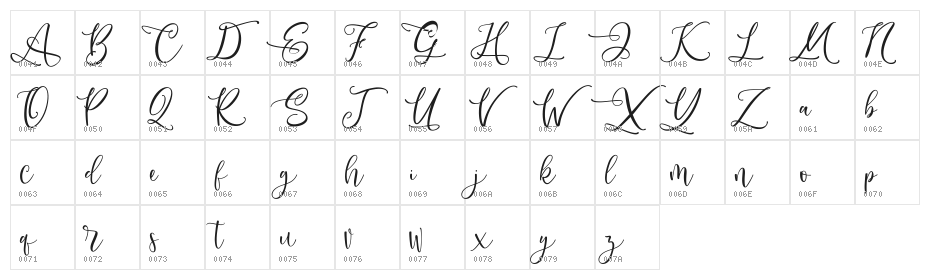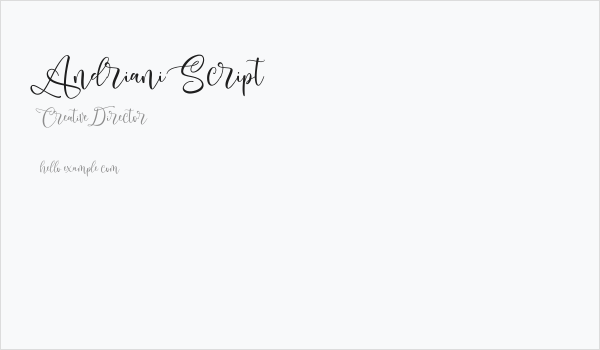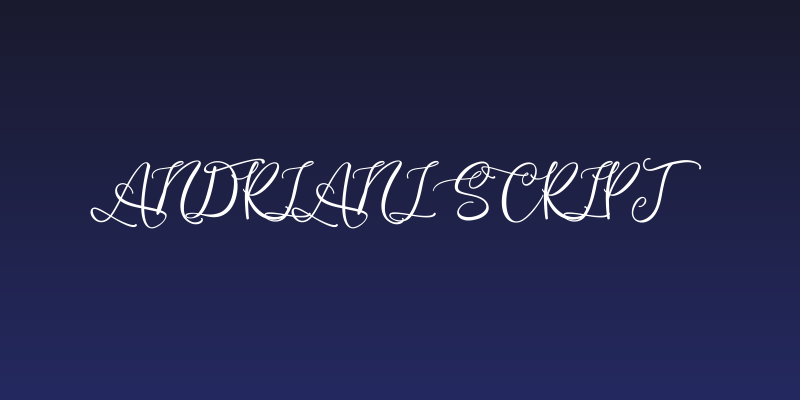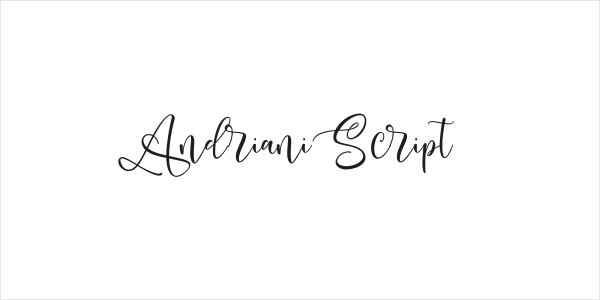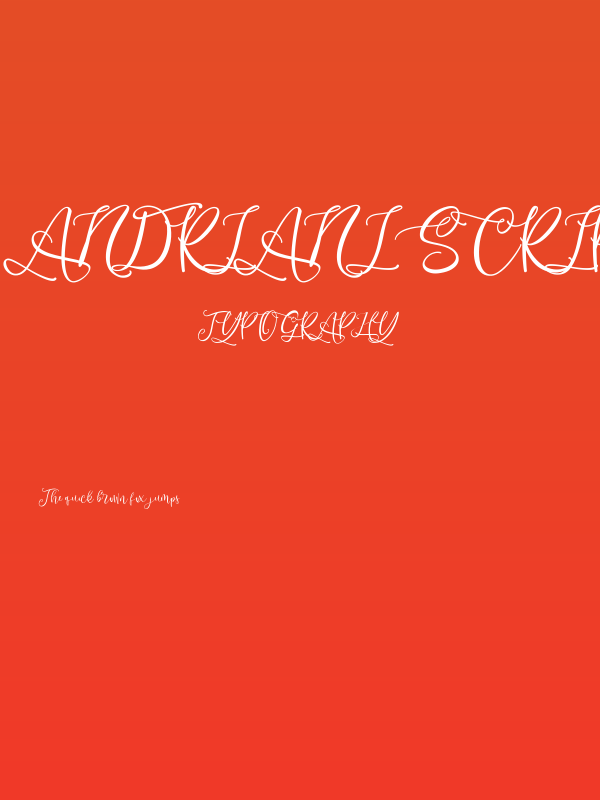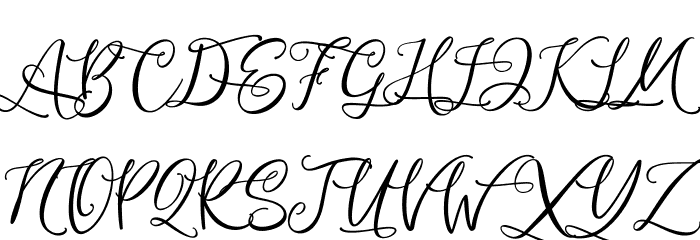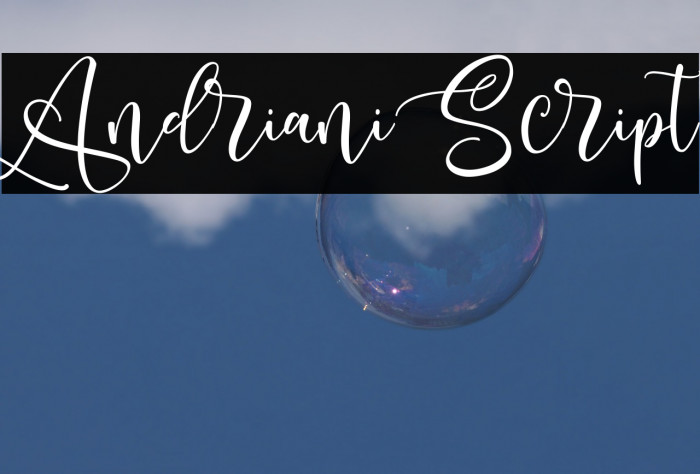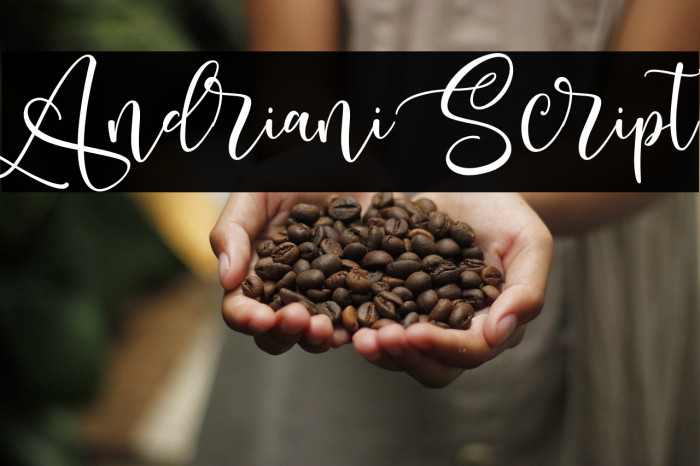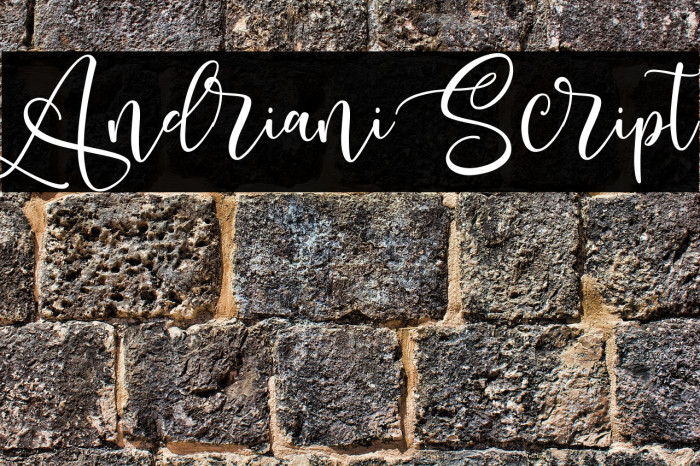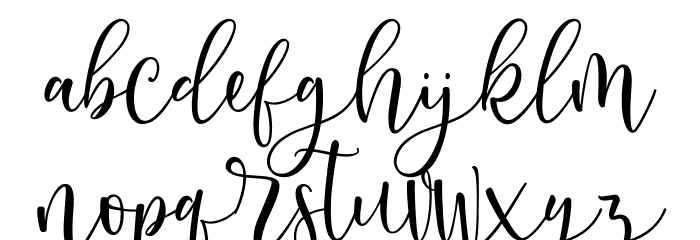
Andriani Script Font
Andriani Script Description
This elegant script font features flowing, interconnected letters with a graceful and sophisticated appearance. The uppercase letters are ornate, with elaborate swashes and loops that add a touch of flair. The lowercase letters maintain a consistent style, with smooth curves and a slightly playful demeanor. This font exudes a sense of elegance and charm, making it ideal for projects that require a personal touch. The characters are well-balanced, with a harmonious blend of thick and thin strokes that create a pleasing visual rhythm. The overall design is both classic and contemporary, offering versatility for various design needs.
| Overall Style | Elegant, Sophisticated |
| Use Case | Logos, Invitations, Decorative text |
| Proposed Projects | Wedding invitations, greeting cards, branding, and elegant packaging. |